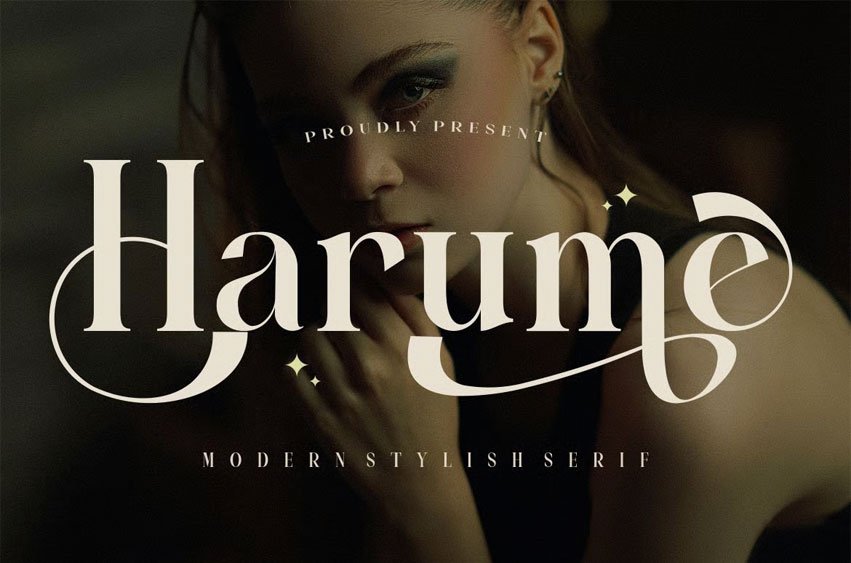
Harume Font is a versatile and unique typeface that comes in a variety of styles, each with its unique feel and character, featuring high contrast, sharp details, and classic charm.
With its refined details and versatile style, it can be easily adapted for a variety of creative projects. It provides an elegant and professional look for any project.
Can be used for:
• .Branding & visual identity
• .Product packaging & labels
• .Invitations & stationery
• .Posters, flyers & marketing materials
• Projects requiring a touch of elegance and prestige